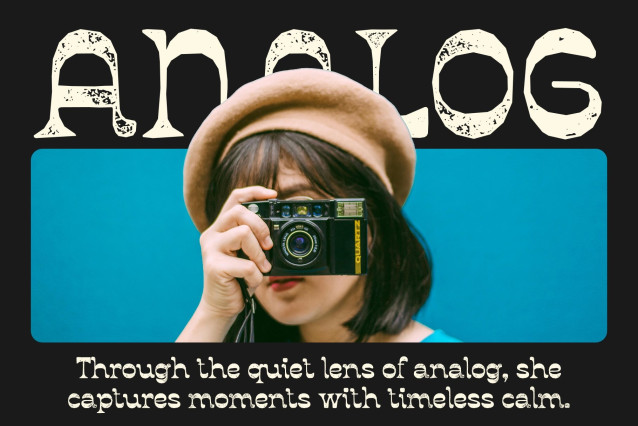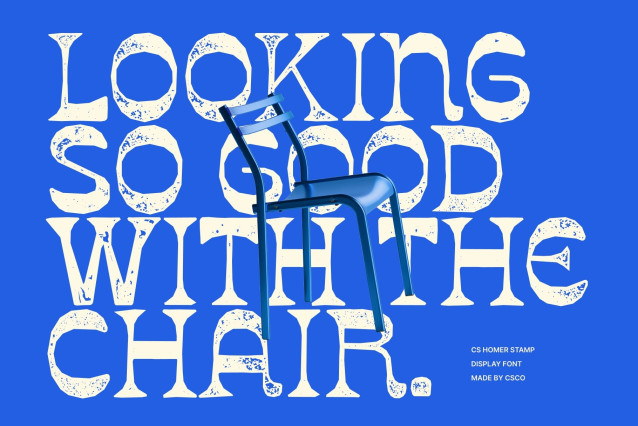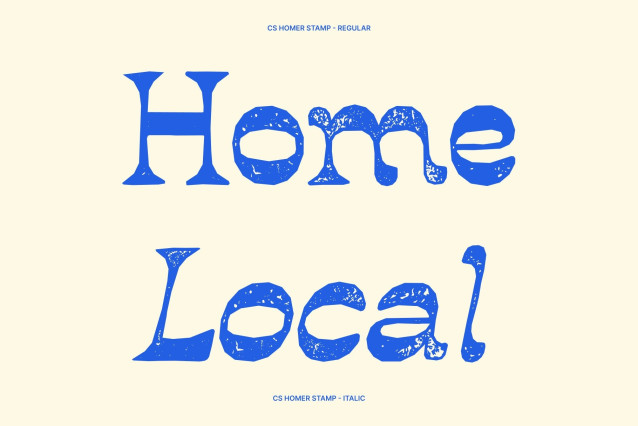
CS Homer Stamp – Reverse Contrast Display Font
Intriguing and Distinctive Style
This is a striking display font defined by its reverse contrast design, where the traditional weight distribution of thick and thin strokes is intentionally inverted. This unusual approach gives the typeface a unique personality while evoking vintage typographic aesthetics from past eras.
Vintage Charm Meets Modern Creativity
Blending retro elegance with contemporary design sensibilities, this font delivers a look that feels both classic and fresh. The reverse contrast adds visual curiosity and artistic flair, helping your typography stand out with a memorable and expressive presence.
Perfect for Eye-Catching Visual Projects
Designed for high-impact use, this font works beautifully for posters, branding, packaging, headlines, and editorial layouts. Its bold character ensures strong visibility while maintaining an artistic and refined feel.